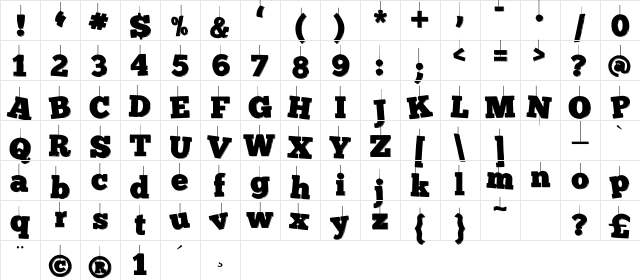
KerstKaart Regular
Design Context for KerstKaart Typeface
KerstKaart is a composed and adaptable typeface that performs quietly and consistently across a wide range of design contexts.
Pro Tip: Pair KerstKaart with a font of contrasting weight or personality to build a more expressive typographic hierarchy.